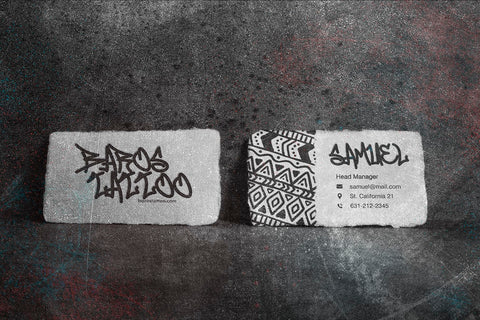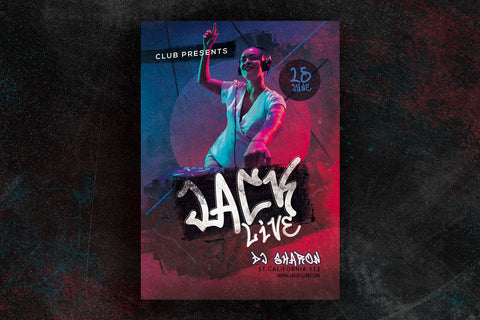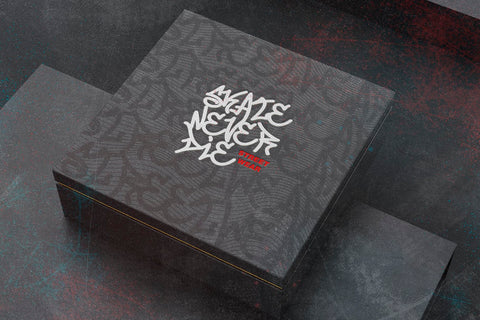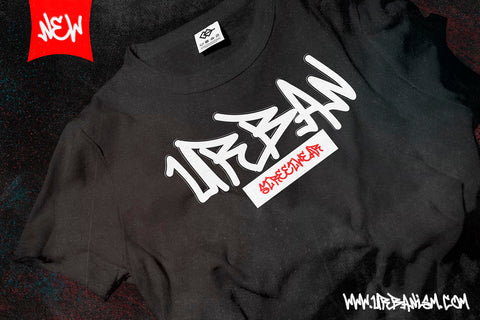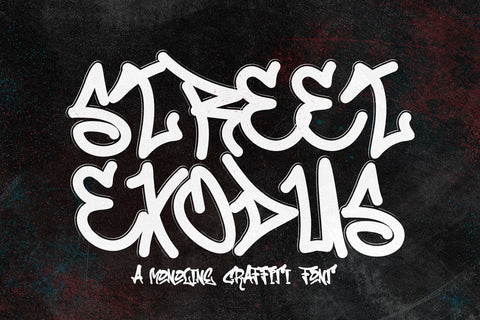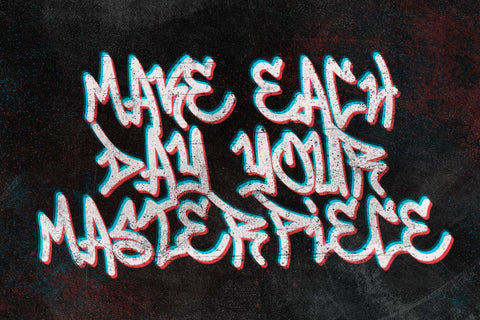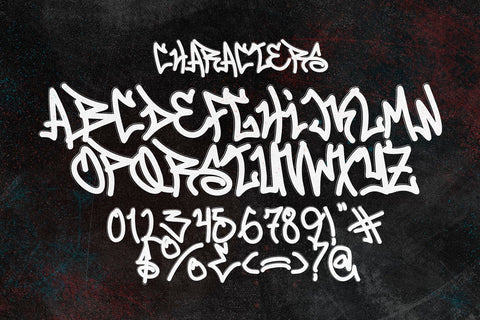
Street Of Exodus - Monoline Graffiti Typeface
"Street of Exodus" is a monoline font with a graffiti theme and a slight shadow effect to add depth and decoration to the font. It is perfect for a wide range of urban or street-themed design projects, such as streetwear design, logo design, car/motosport decals, skateboard decals, and other similar designs. With its edgy and bold appearance, "Street of Exodus" brings a sense of energy and attitude to your designs. The font's monoline style and slight shadow effect create a 3D effect that adds visual interest and makes your designs stand out. Whether you're looking to create a strong and impactful design or add a touch of urban style to your projects, "Street of Exodus" is the font for you.
- Graffiti Characters looks